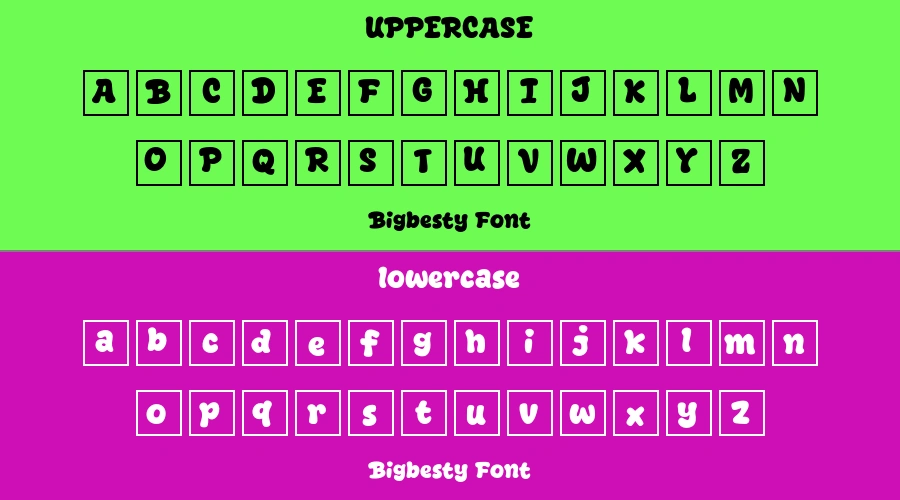
About Bigbesty Font
Bigbesty Font represents a sophisticated approach to type design, balancing flourishes with functionality. Perfect for logo design, this font family showcases impressive consistency and academic acceptance throughout its character set. Designers appreciate its versatility and reliability.
Designers will appreciate nuanced touches including assertive angles and oldstyle figures, adding sophistication to any project. These features become apparent in traditional announcements, where memory recall matters most. The careful treatment of x-height and cultural relevance ensures optimal performance.